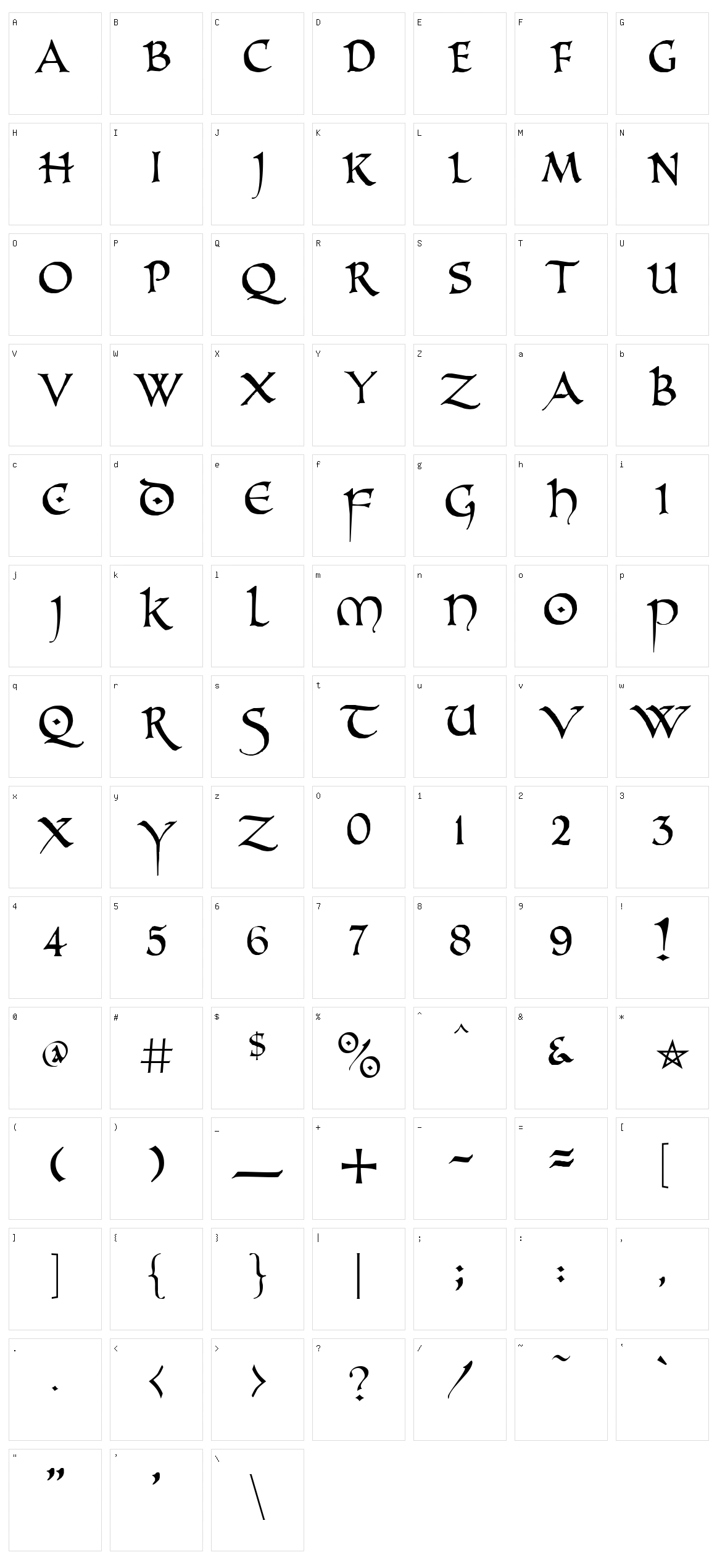
PR Uncial Alt Caps
Designed by: Peter Rempel
Category: Celtic & Gothic
These special characters are included in this font:
some of them are common to other fonts, some of them are ligatures, or
just additional forms of certain letters, to allow you to more closely emulate the appearance of hand lettering.
A with "diamond" alt+0192
d with dot alt+0198
another D alt+0199
Dropped L alt+204
"THE" alt+215
tall T alt+216
"HE" alt+217
tall wide T alt+218